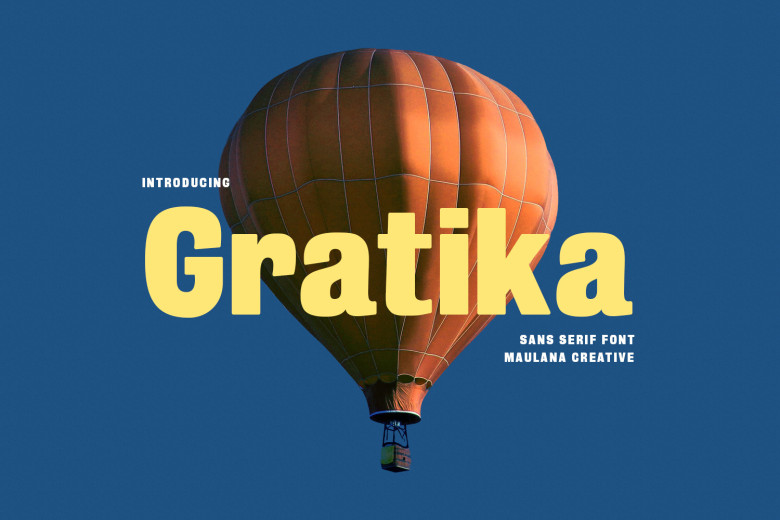
Gratika Font
Gratika is an eye-catching display font with strong sharp edges. Extra Bold strokes, fun characters with ligatures and alternative characters provide endless creative opportunities. Supporting over 100 languages allows this font to be used across logos, social media, movie titles, book titles, short texts (even long text letters) letters as well as secondary texts featuring serif or script fonts; all contributing to creating stunning designs with its beautiful style.
Gratika Sans Serif Font